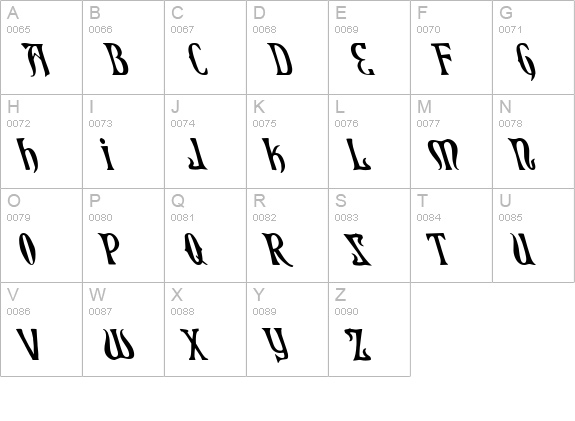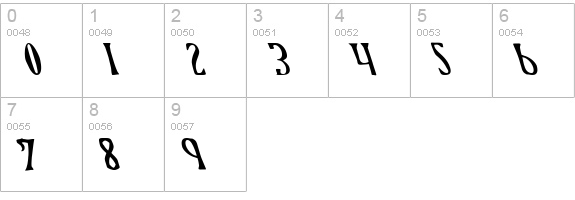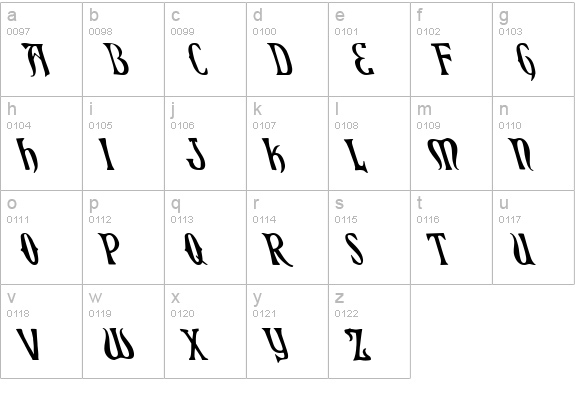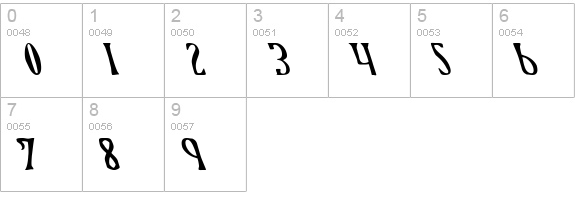
Xiphos Leftalic is a stylish and modern font that exudes elegance and sophistication. Its sleek and slanted design adds a touch of flair to any project, making it perfect for creating eye-catching designs. The smooth curves and sharp angles of Xiphos Leftalic give it a unique and contemporary look that is sure to make a statement. What sets Xiphos Leftalic apart is that it is not only visually stunning but also free for anyone to download and use. Available at FontsMarket.com, this versatile font is a valuable addition to any designer's toolkit. Whether you're working on a branding project, a website design, or a creative poster, Xiphos Leftalic is the perfect choice to elevate your work and leave a lasting impression. Download Xiphos Leftalic today and unleash your creativity with this exceptional font.